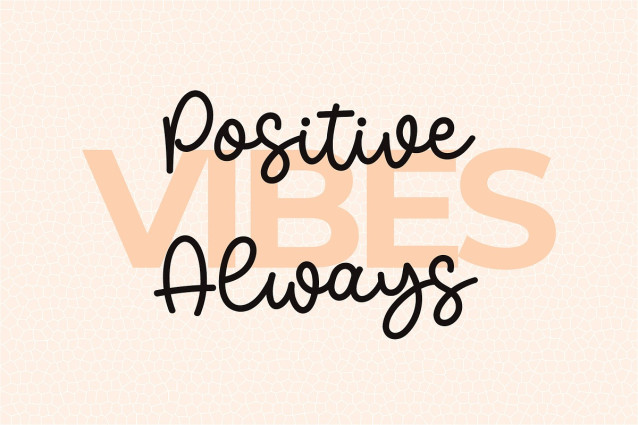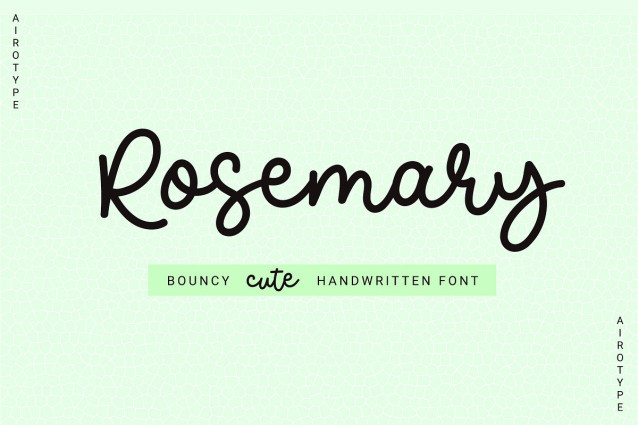
Rosemary Script Font
Rosemary Script Font is bouncy, simple, and cute monoline font. Its simplicity made this font can be used for wide ranges of design projects, especially designs that need handwritten and cuteness touch.
Rosemary is perfect font for any projects, such as wedding invitation, t-shirt design, crafting, sticker, sublimation, and many more.